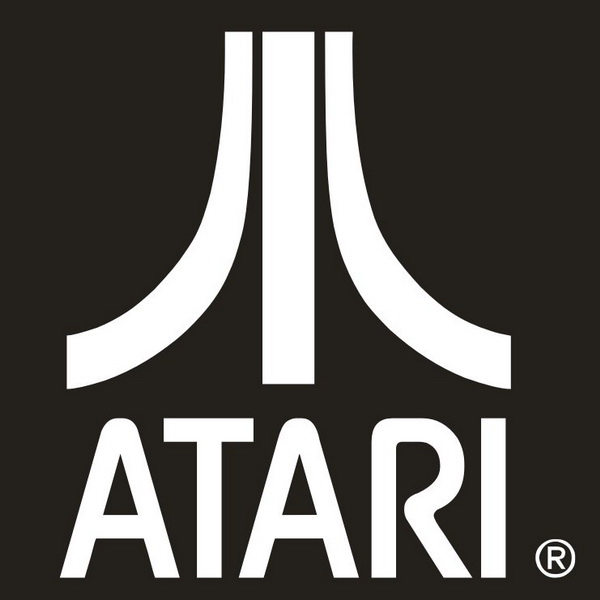
Atari Font
Company & ConsolesAtari is a brand of video game consoles and home computers from the 1970s and 1980s. It is widely considered to be the company that popularized the home video game industry.
The Atari logo, resembling the Japanese Mountain Fuji and also known as "Fuji", was created by George Opperman. The logotype uses a font called SF Atarian System by ShyFoundry. You can download the font for free from the Fonts Used Section.